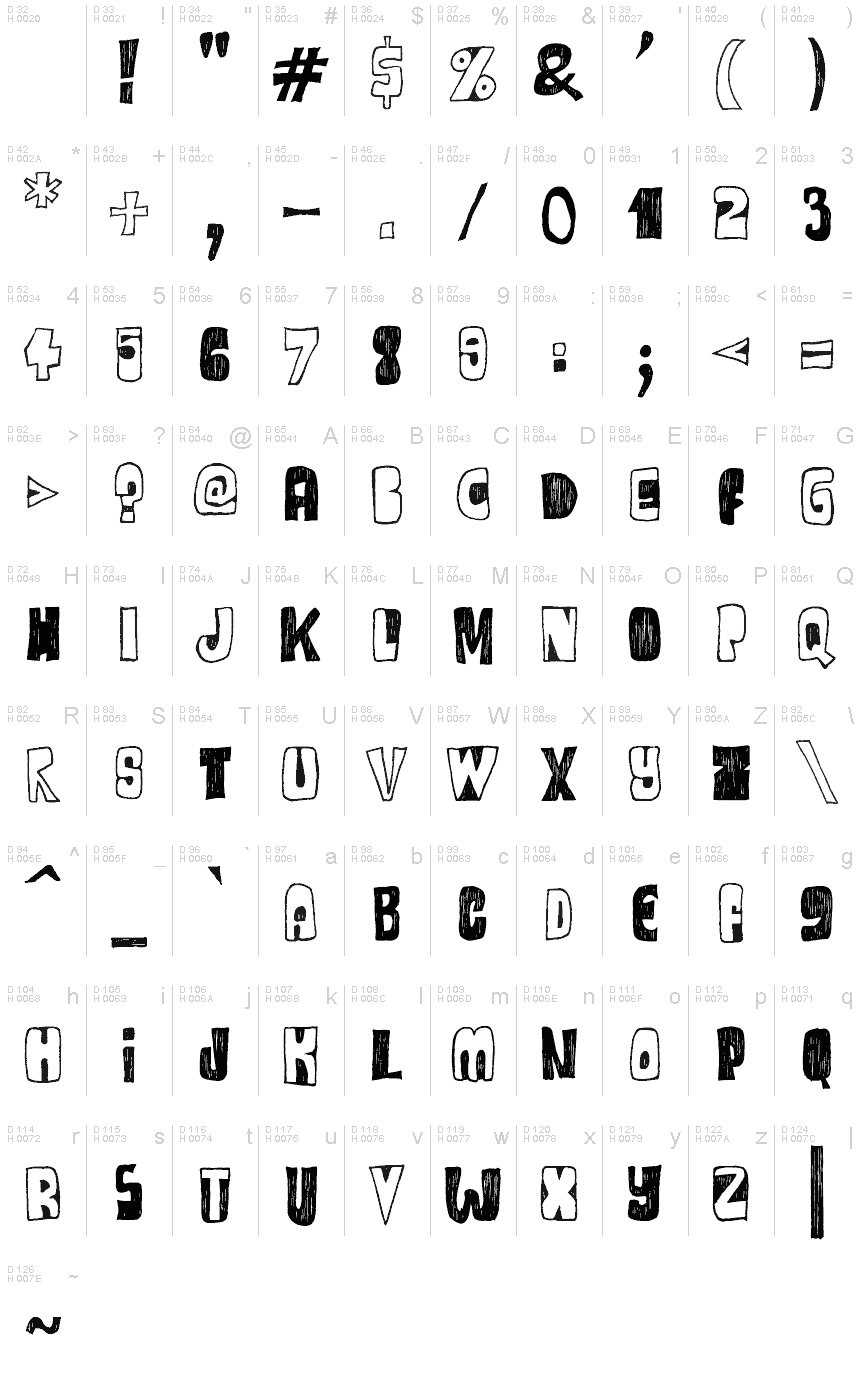
One Way Or Another
"One Way Or Another" is a bold, cartoon-style display font that exudes a vibrant, playful energy. With its irregular, distressed letterforms and condensed width, this font commands attention and immediately draws the eye. Its distinct aesthetic lends itself well to a range of design applications, from eye-catching headlines and logos to dynamic packaging and advertising. The font's unique character and versatility make it an excellent choice for projects seeking to convey a sense of creativity, adventure, or youthful exuberance.
Thoughtfully crafted by Imagex, "One Way Or Another" offers designers a versatile tool to add visual impact and personality to their work. Its strong, condensed structure and bold, expressive lines make it an impactful choice for headers, titles, and other display-oriented elements. The font's distinctive style can elevate a wide variety of design projects, from editorial layouts and branding materials to signage, posters, and beyond.